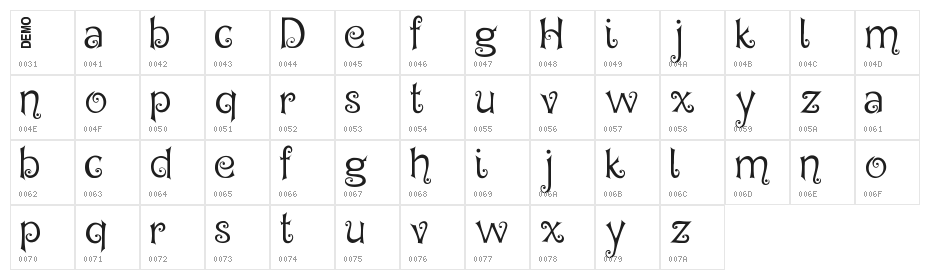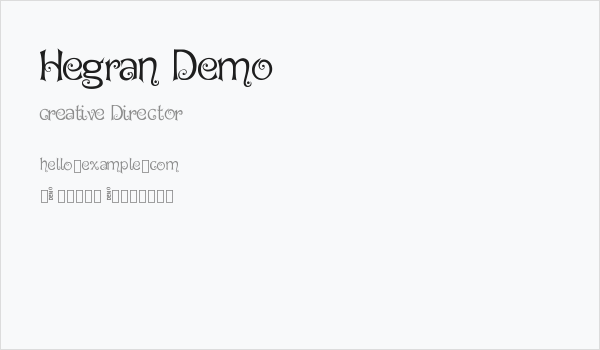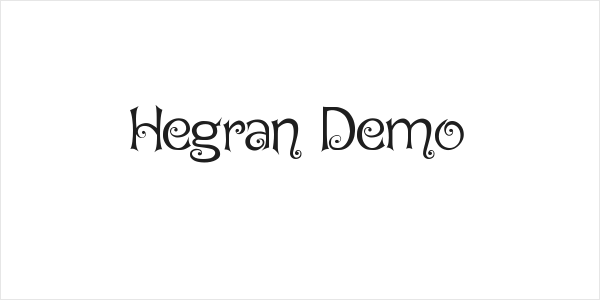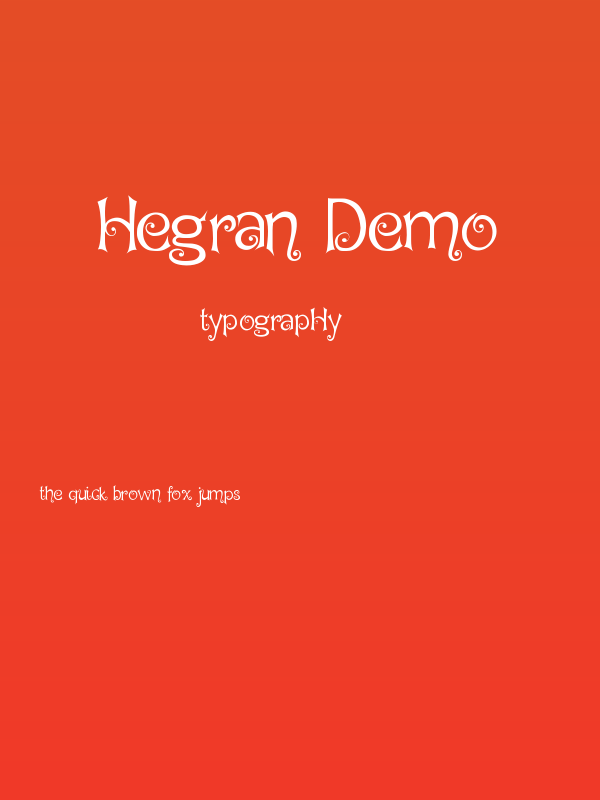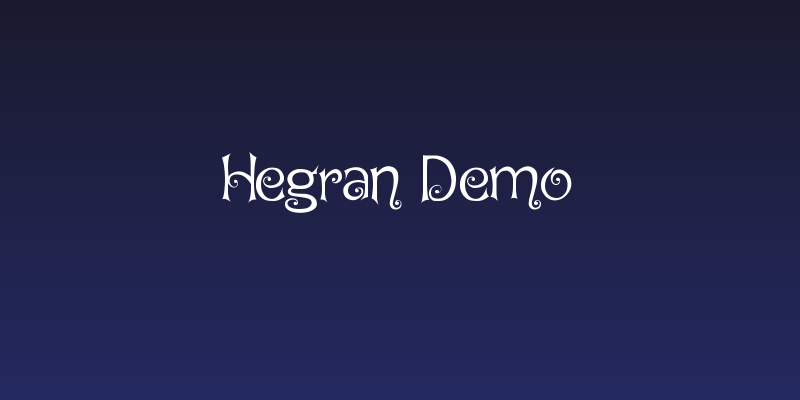
Hegran Demo Font
Hegran Demo Description
This font features a whimsical and decorative style with unique, swirling elements integrated into the characters. The uppercase and lowercase letters exhibit a playful yet elegant design, with strokes that vary in thickness, adding a dynamic and artistic flair. The font maintains a consistent baseline, while the ascenders and descenders are creatively extended, enhancing its ornamental appeal. The numerals and special characters are crafted with the same attention to detail, ensuring a cohesive look across all glyphs. This font is ideal for projects that require a touch of fantasy and creativity.
| Proposed Projects | Perfect for invitations, greeting cards, fantasy-themed projects, and decorative headings. |